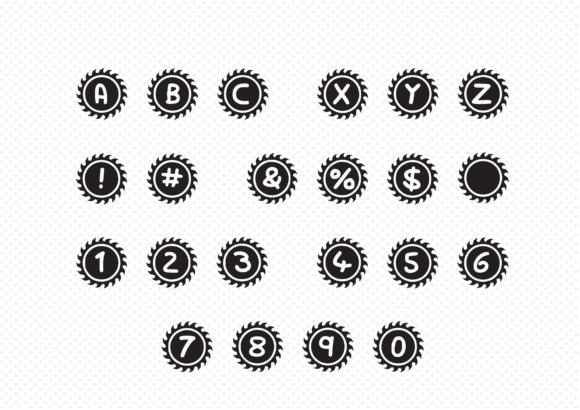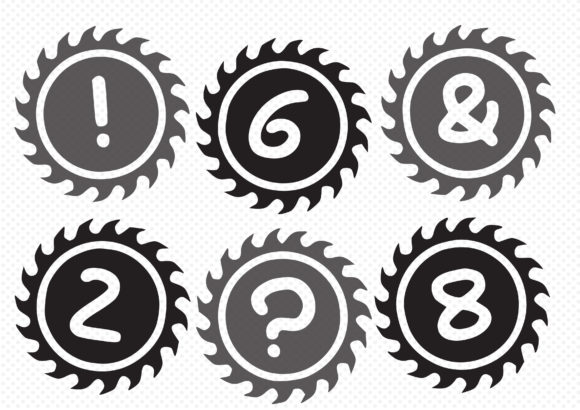
Introduction to Play Saw Font
Remember that moment when you stumbled upon the perfect design element for your creative project? The thrill of seeing your idea come to life is unmatched, and the right font can make all the difference. For crafty and artsy individuals, the Play Saw Font is a game-changer. Its unique, handcrafted design makes it a valuable addition to any design resource.
Whether you’re working on a DIY project, creating a logo, or developing a brand identity for a construction company, the Play Saw Font is an excellent choice. Its high-quality design and versatility make it a must-have for designers who value creativity and precision. In this article, we’ll delve into the world of the Play Saw Font, exploring its features, uses, and how to get your hands on this fantastic free download.
With its transparent background and seamless scalability, the Play Saw Font is perfect for a wide range of applications, from social media posts to construction branding. Let’s dive into the world of this amazing font and discover why it’s a top design resource for creatives everywhere.
Key Features of Play Saw Font
- High-quality design resource with a unique, hand-drawn style perfect for creative projects.
- Transparent background, making it easy to layer over images and maintain a clean, minimalist aesthetic.
- Designed to be versatile, suitable for a wide range of applications, from logos and branding to digital art and print materials.
- Includes a comprehensive character set, covering Latin, Cyrillic, and Greek alphabets, as well as various punctuation marks and symbols.
Honest Review: Play Saw Font
As a designer, I’m always on the lookout for high-quality design resources to elevate my creative projects. Recently, I had the chance to try out the Play Saw Font, and here’s my honest review.
- The font has a unique, hand-crafted feel that adds a touch of personality to any design.
- The high-quality design ensures that the font looks great on both digital and print materials.
- The font may not be suitable for all design projects, particularly those requiring a more formal or traditional look.
Overall, I’m impressed with the Play Saw Font’s unique style and versatility. While it may not be the best fit for every design project, it’s definitely a valuable addition to any designer’s creative arsenal.
Play Saw Font
Tips for Getting the Most Out of Play Saw Font
To get the most out of Play Saw Font, use it with a transparent background to create a modern and sleek design. Experiment with different font sizes and styles to add visual interest to your project.
Play Saw Font is commonly used for various creative projects, including logos, branding materials, social media graphics, and advertising campaigns. Its high-quality design makes it an excellent choice for any design project requiring a unique and modern touch.